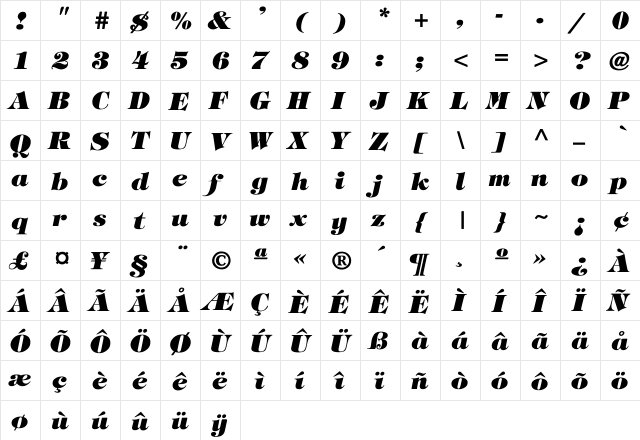
Tiffany-Heavy-Italic Regular
Design Context for Tiffany-Heavy-Italic Typeface
Tiffany-Heavy-Italic offers clean, dependable letterforms without strong stylistic allegiance, making it a practical choice for designers who need flexibility. The slanted form adds forward momentum and visual energy.
Pro Tip: Try Tiffany-Heavy-Italic for annotation and caption copy alongside an upright companion — the contrast in angle creates a dynamic but ordered typographic system.